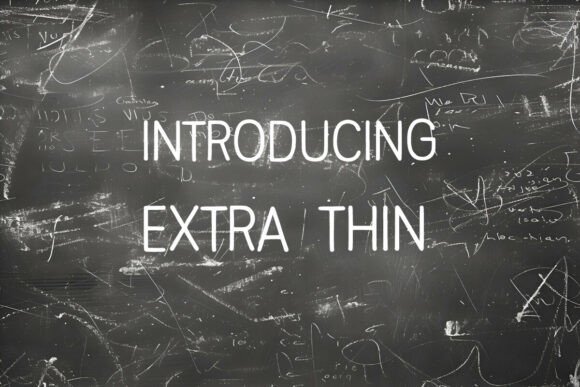
Elevate Your Designs with Extra Thin Font: The Ultimate Choice for Creative Projects
In the world of typography, a font can make all the difference in elevating your creative projects to stunning new heights. If you’re on the hunt for a typeface that embodies elegance, versatility, and precision, look no further than Extra Thin Font. This beautiful font has been designed to effortlessly straddle the line between stylish and functional, making it the perfect choice for a wide range of applications.
The Characteristics of Extra Thin Font
Extra Thin Font is known for its delicate and sleek characteristics, which make it a standout in the world of typography. Its ultra-lightweight design gives it a modern and sophisticated feel, perfect for creating striking designs that demand attention. Whether you’re working on a project for shirts and stickers, enhancing brand identities, or adding a touch of elegance to your magazine layouts, Extra Thin Font is the perfect choice.
Applications of Extra Thin Font
One of the things that sets Extra Thin Font apart is its incredible versatility. This font excels in a wide range of applications, from digital formats like SVG files to physical products like greeting cards and posters. Here are just a few examples of how you can use Extra Thin Font to elevate your creative projects:
- Shirts and Stickers: Create eye-catching designs for shirts and stickers that are sure to turn heads. The delicate and sleek characteristics of Extra Thin Font make it perfect for adding a touch of elegance to your designs.
- Brand Identities: Enhance your brand identity with the sophistication and precision of Extra Thin Font. This font is perfect for creating logos, business cards, and other marketing materials that demand attention.
- Magazine Layouts: Add a touch of elegance to your magazine layouts with Extra Thin Font. This font is perfect for creating headlines, subheadings, and body copy that is both stylish and functional.
- Digital Formats: Extra Thin Font excels in digital formats like SVG files, making it perfect for use in cutting machines like Cricut. This font is also ideal for use in social media designs, where precision and class are essential.
- Greeting Cards: Add a touch of sophistication to your greeting cards with Extra Thin Font. This font is perfect for creating elegant and stylish designs that are sure to impress.
- Posters: Create stunning posters with Extra Thin Font that are sure to grab attention. This font is perfect for use in a wide range of poster designs, from movie posters to event posters.
Why Choose Extra Thin Font?
So why choose Extra Thin Font for your creative projects? Here are just a few reasons why this font stands out:
- Versatility: Extra Thin Font is incredibly versatile, making it perfect for use in a wide range of applications.
- Elegance: This font embodies elegance and sophistication, making it perfect for creating stylish and functional designs.
- Precision: Extra Thin Font is designed with precision in mind, making it perfect for use in digital formats like SVG files.
- Compatibility: This font is wonderfully compatible with Cricut projects and effortlessly fits well on posters, making it perfect for use in a wide range of creative projects.
In conclusion, Extra Thin Font is a game-changer in the realm of typography. Its delicate and sleek characteristics make it perfect for creating striking designs that demand attention. Whether you’re working on a project for shirts and stickers, enhancing brand identities, or adding a touch of elegance to your magazine layouts, Extra Thin Font is the perfect choice. So why wait? Enhance your creative journey with Extra Thin Font and marinate your projects with a dash of artistic elegance.
With Extra Thin Font, you can:
- Create stunning designs for shirts and stickers
- Enhance your brand identity with precision and class
- Add a touch of elegance to your magazine layouts
- Excel in digital formats like SVG files
- Create charming greeting cards and posters